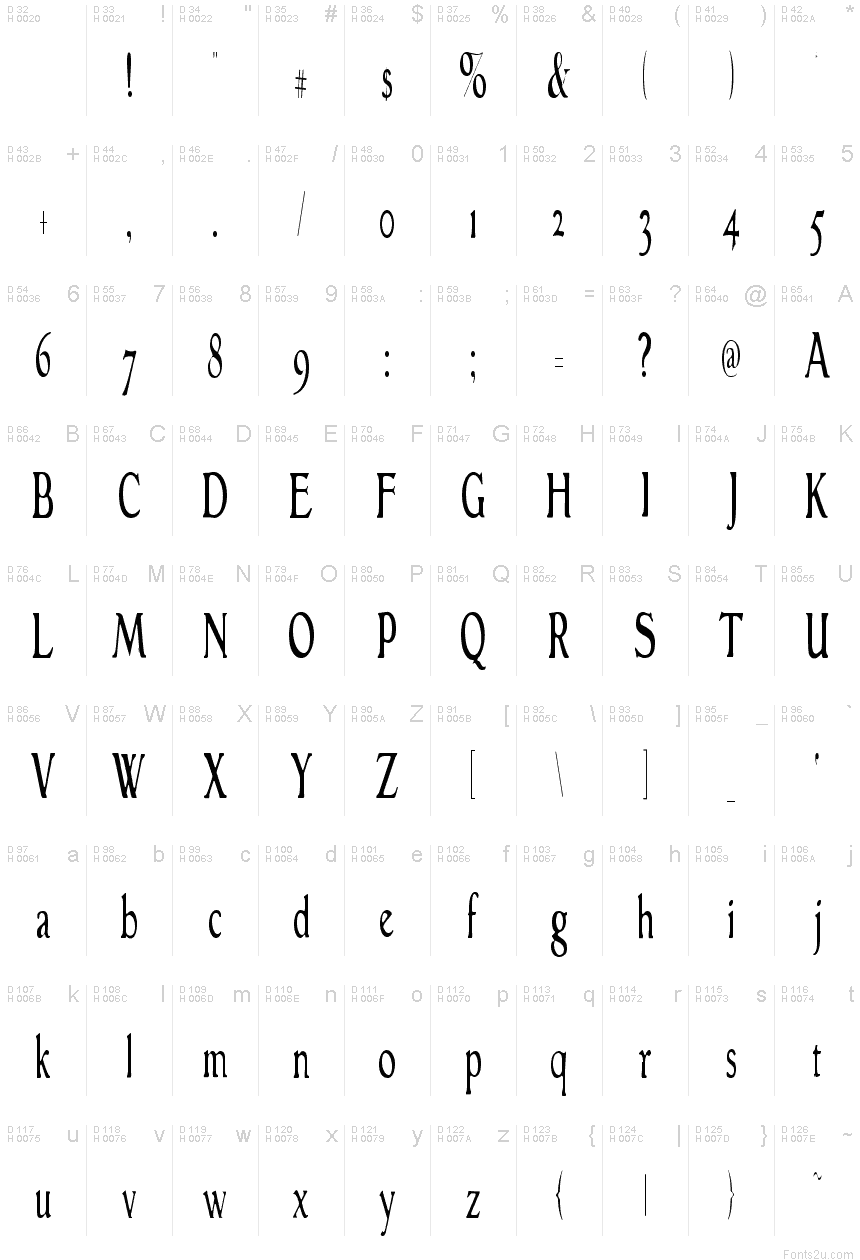
GranthamLightCondensed
Grantham Light Condensed font by PJL is a free retro serif typeface. Its tall, narrow letters and gently uneven strokes feel like headlines pulled from an old newspaper or worn book jacket, with just enough roughness to suggest ink on absorbent paper. The compact width lets you squeeze in longer words without losing that elegant, slightly theatrical rhythm.
Using Grantham Light Condensed, you can give instant character to book covers, theater posters, vintage branding, boutique packaging, wine labels, and editorial pull quotes. This free font shines when set large, where its quirky curves and tapering strokes can really breathe; add a touch of letterspacing for extra sophistication. Try pairing it with a clean geometric sans for body text to keep layouts readable while letting Grantham Light Condensed handle all the mood and atmosphere.